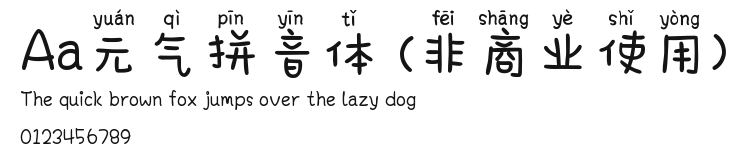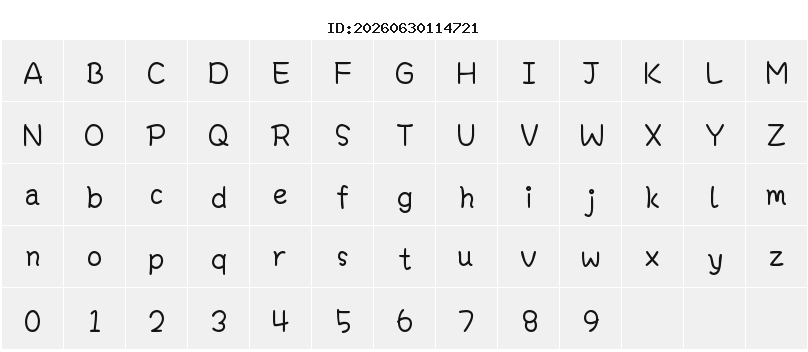
• Designer: Aa
• Description: AaYuanqipinyinti (Non-Commercial Use) is a fantastic font with excellent features designed for user interfaces and electronic communications.
About Aa元气拼音体 (非商业使用).ttf
Aa元气拼音体 (非商业使用).ttf is a modern, elegant sans-serif font designed for ultimate readability and visual harmony. Perfect for branding, headlines, web design, and print materials.